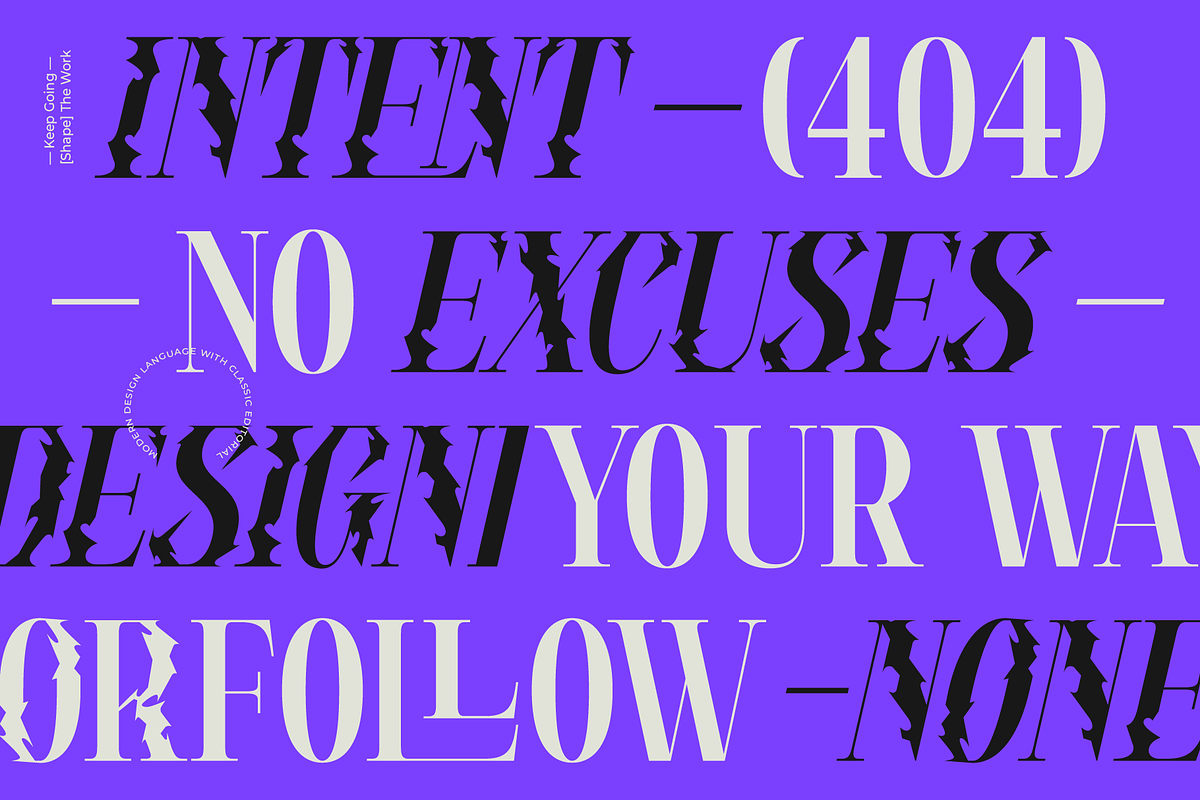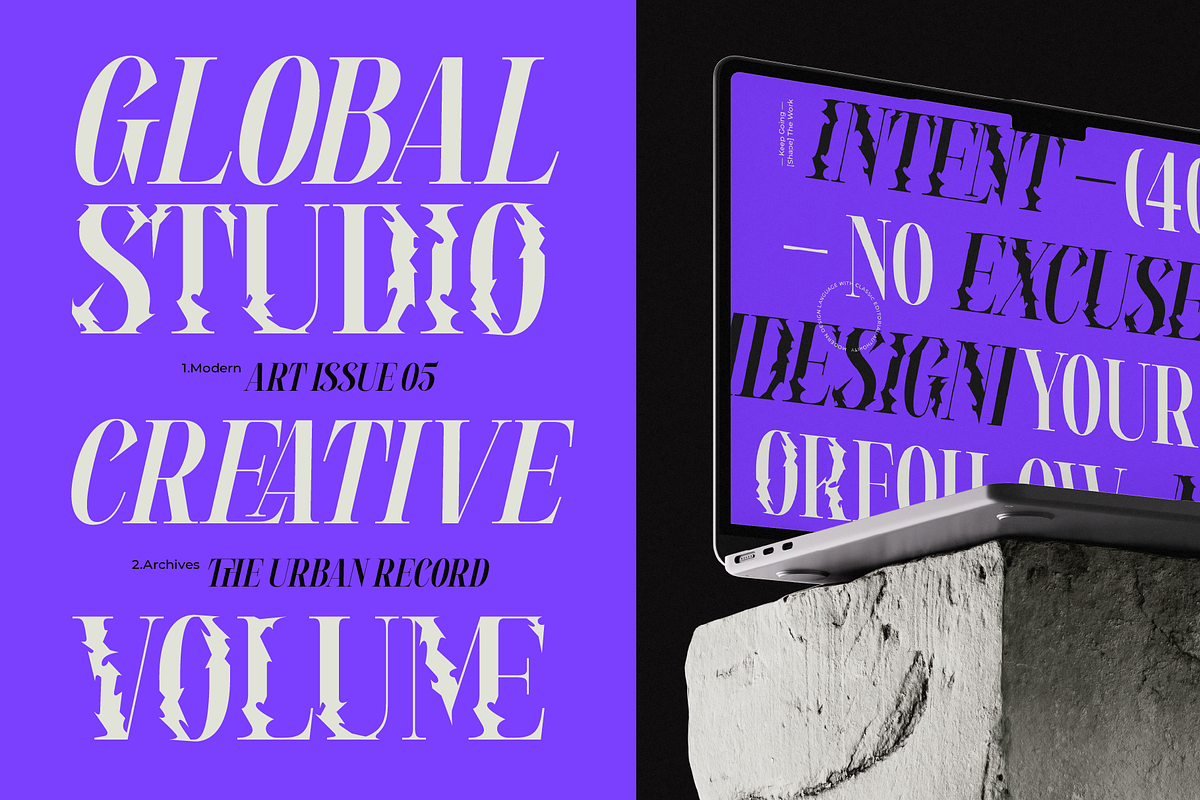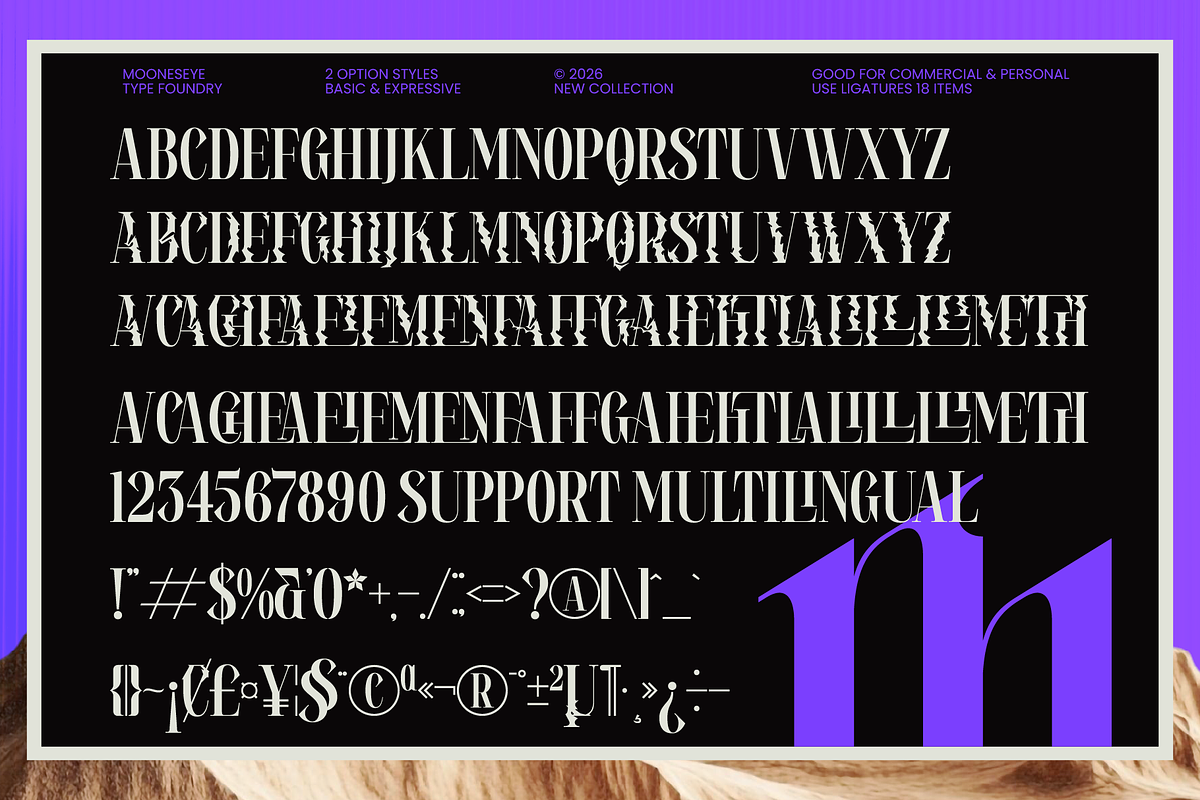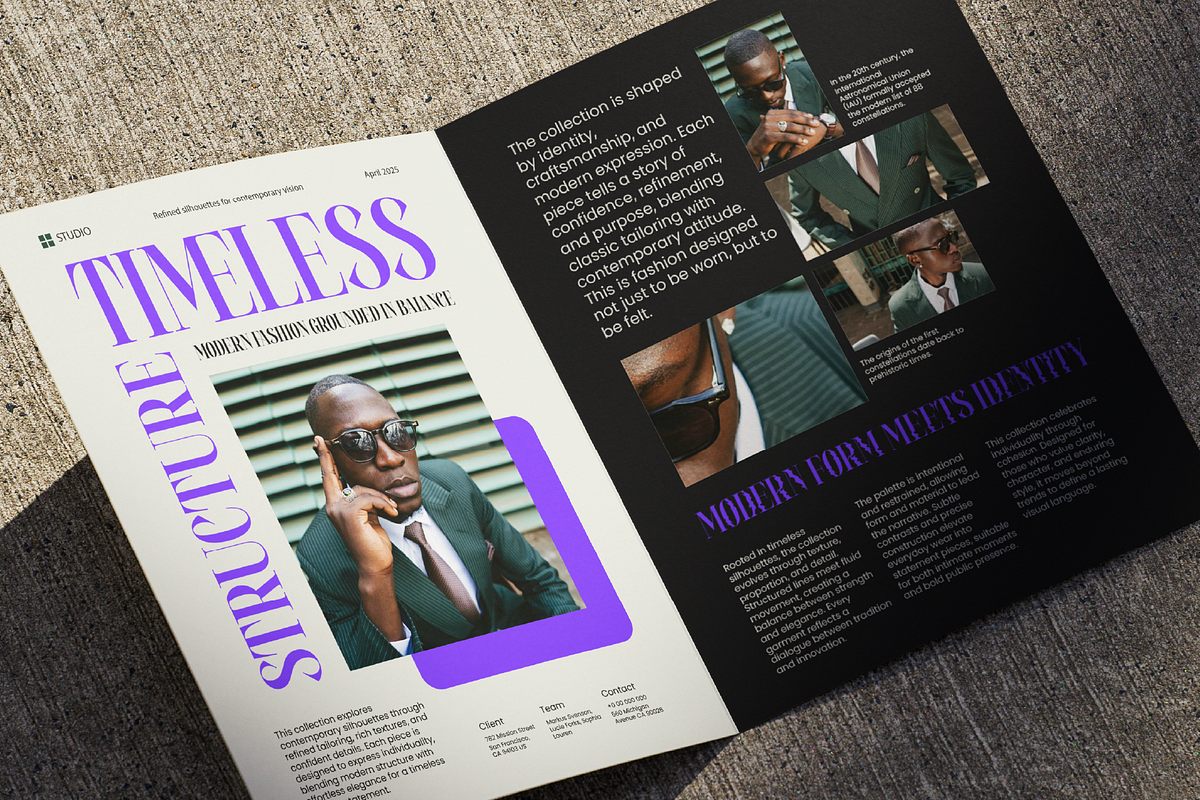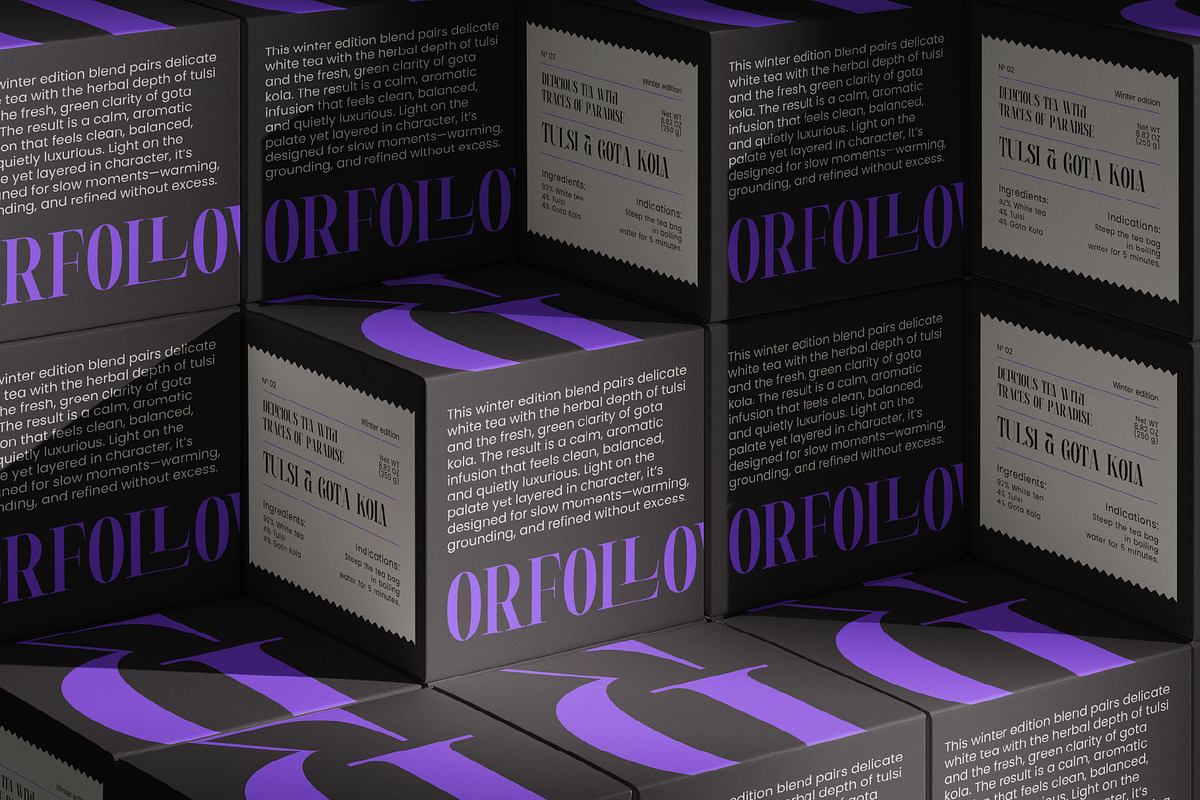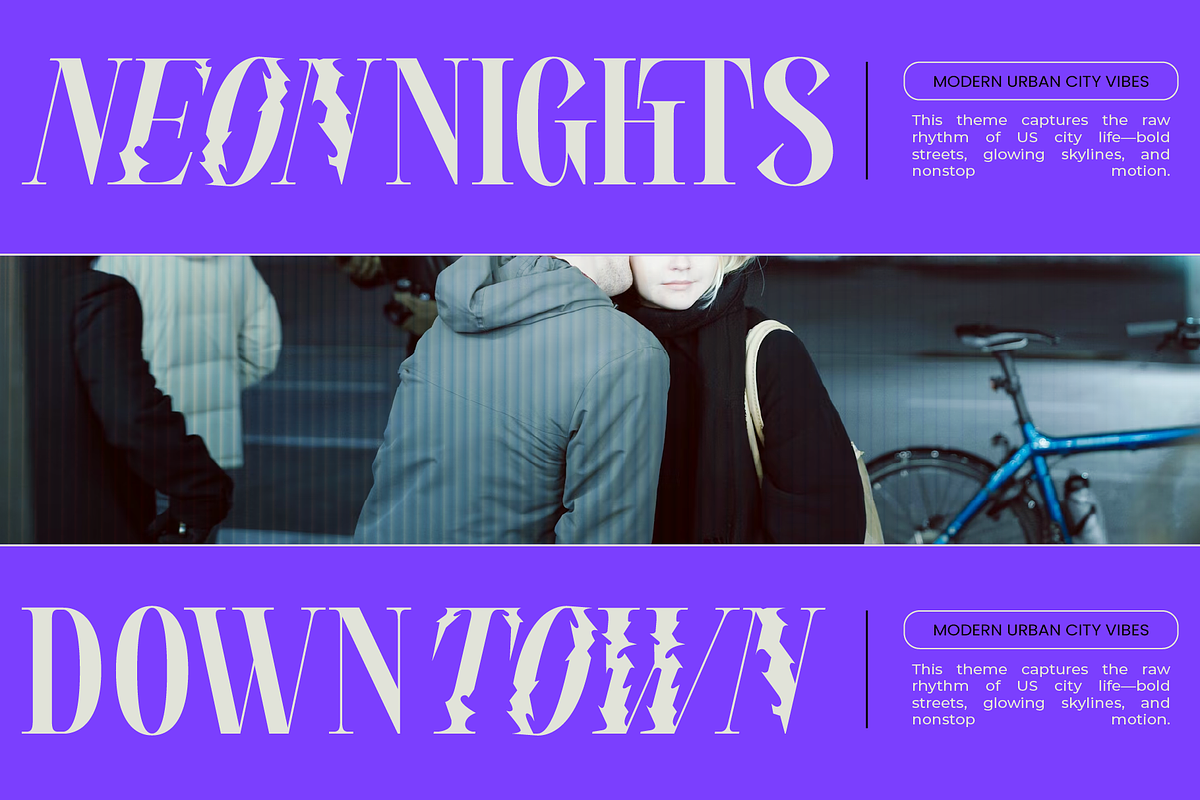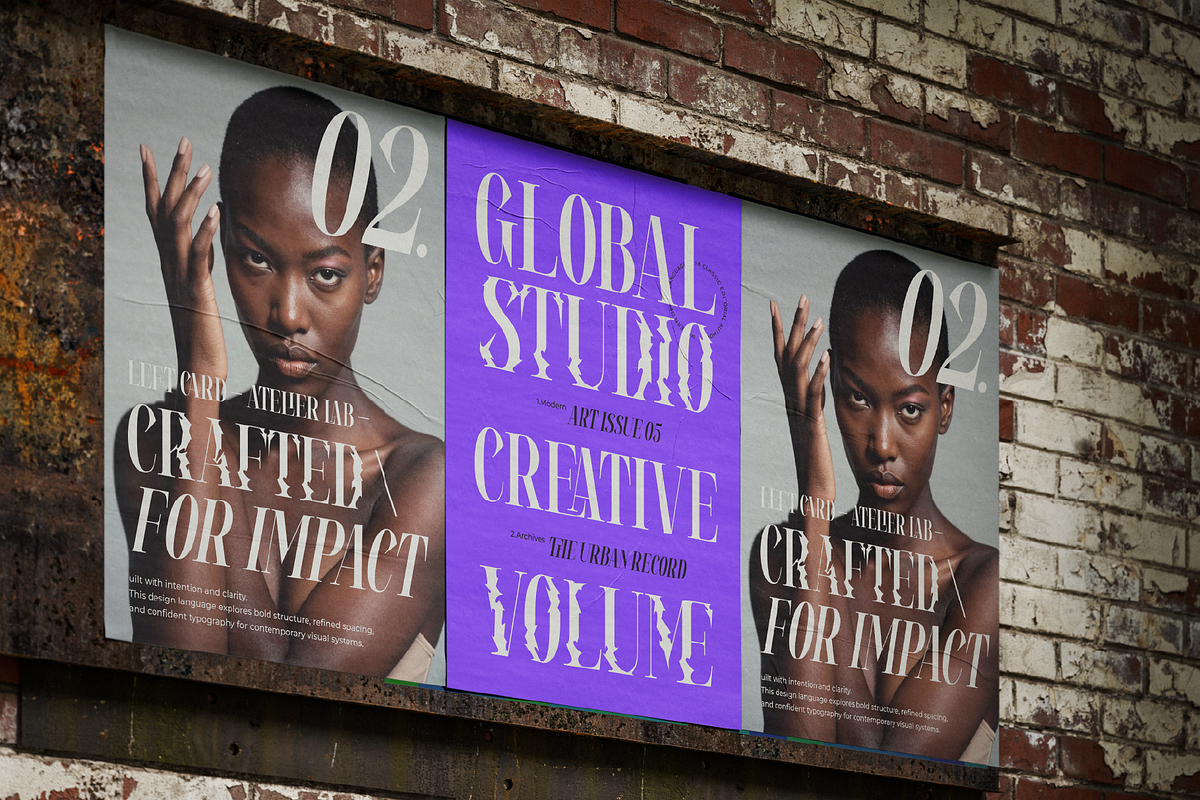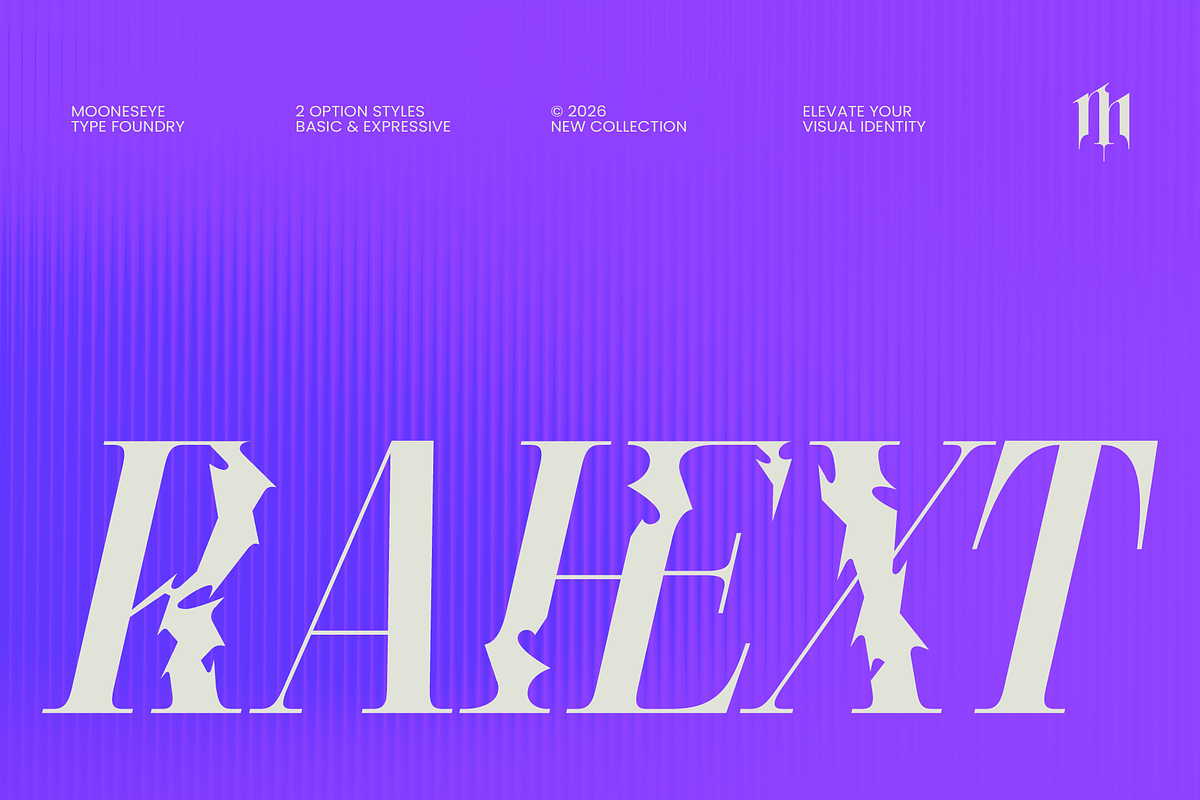
Rahext - Modern Experimental Serif
Where high-fashion elegance meets digital rebellion.
Rahext is a dual-personality typeface designed for those who aren't afraid to break the rules. It captures the sophisticated soul of a classic high-contrast serif and injects it with a sharp, "distorted" edge. Whether you need the clean, liquid-smooth lines of the Basic version for a luxury logo or the aggressive, razor-like serrations of the Expressive style for a streetwear drop, Rahext gives you the best of both worlds in one package.
This font is built for the "hero" moment of your design. Visualize it on a glossy avant-garde magazine cover, a techno album sleeve, or edgy premium packaging. It’s intentional, it’s bold, and it’s designed to turn heads in an overcrowded digital space.
Why Rahext stands out:
- 2-in-1 Style System: Includes both clean Serif and glitched "Expressive" versions.
- Sharp Serrated Edges: Aggressive, sawtooth cutouts for a modern industrial look.
- Liquid Ligatures: Elegant, flowing connections for a high-end editorial feel.
- Extreme Contrast: Dramatic thick-and-thin strokes that scream "Paris Fashion Week."
- Full Multilingual Support: Ready for global branding and international design projects.
- Trend-Ready: Perfect for Y2K, Brutalism, and Acid Graphics aesthetics.